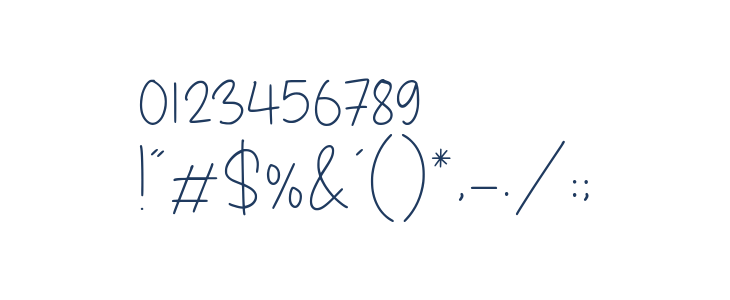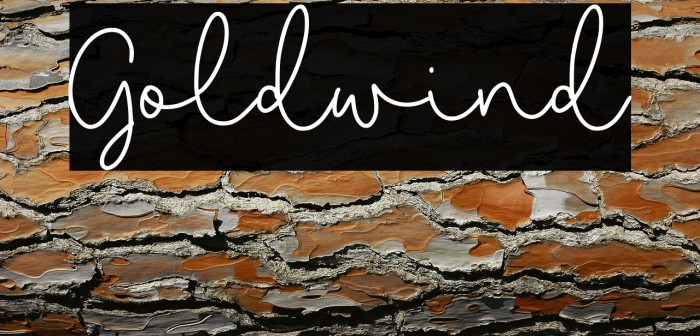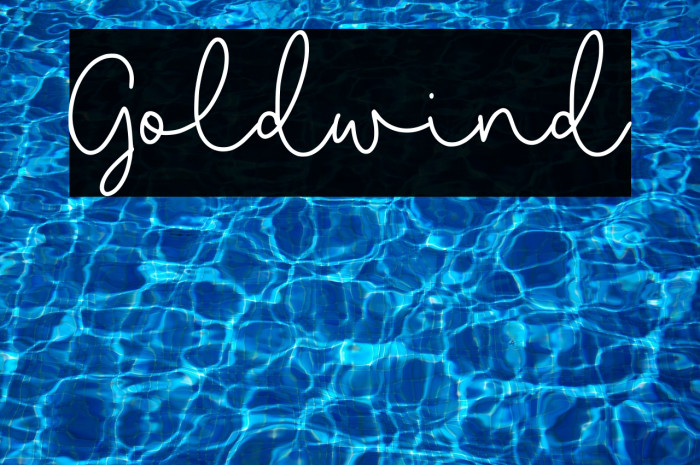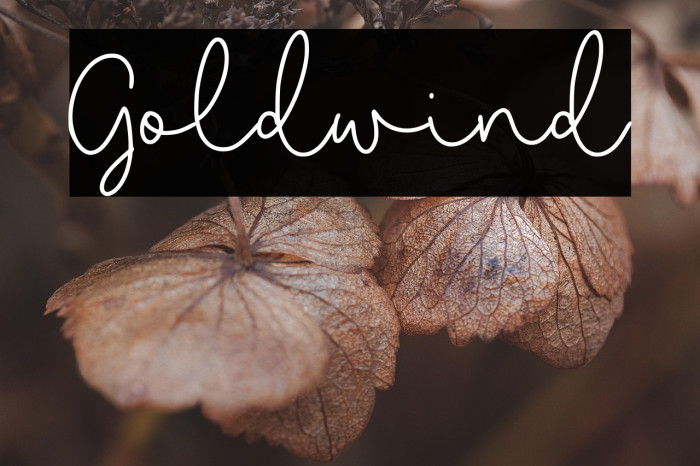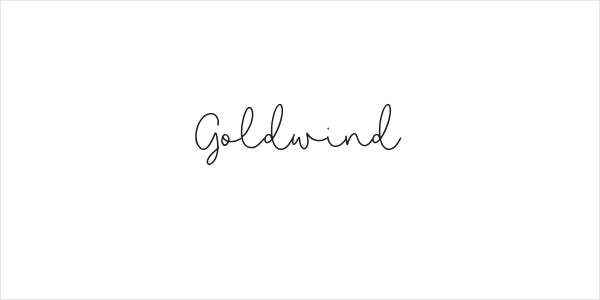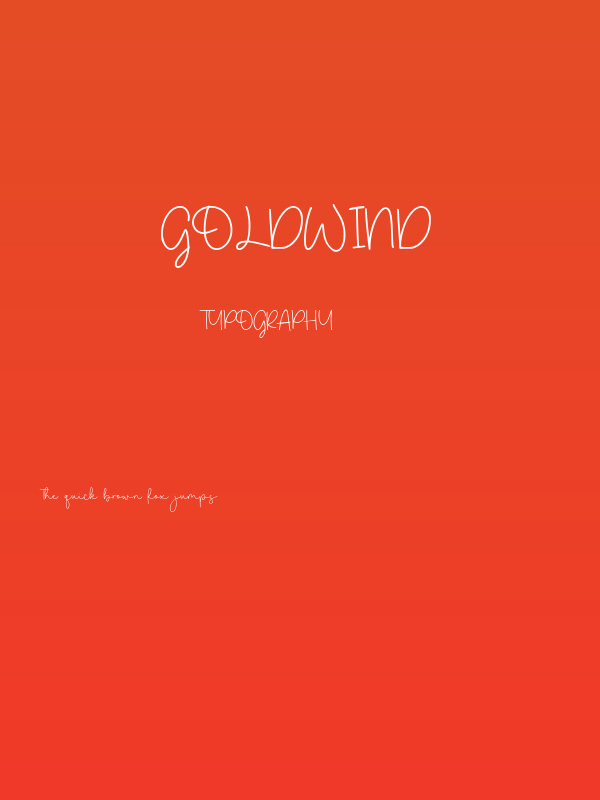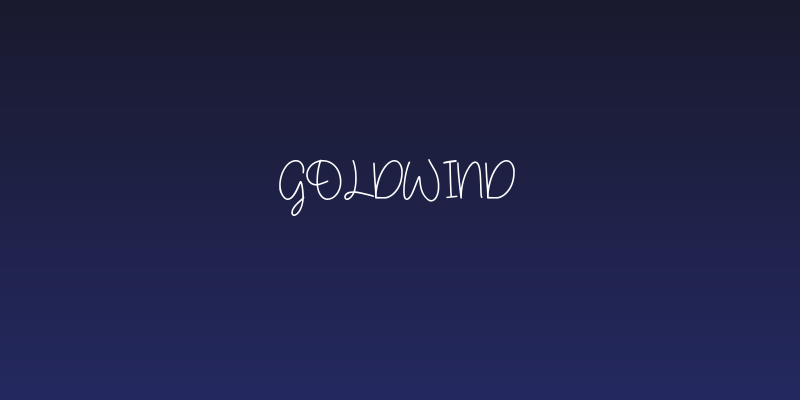
Goldwind Font
Goldwind Description
This font features a playful and casual handwritten style, characterized by its fluid and continuous strokes. The uppercase letters are bold and slightly elongated, giving a sense of movement and energy. The lowercase letters maintain a consistent flow, with some letters like 'g' and 'y' having distinctive loops that add to the font's charm. The numerals are clear and legible, matching the overall style of the alphabet. Special characters are well-integrated, maintaining the same playful and informal aesthetic. This font is ideal for projects that require a personal touch, such as invitations, greeting cards, or branding for creative businesses.